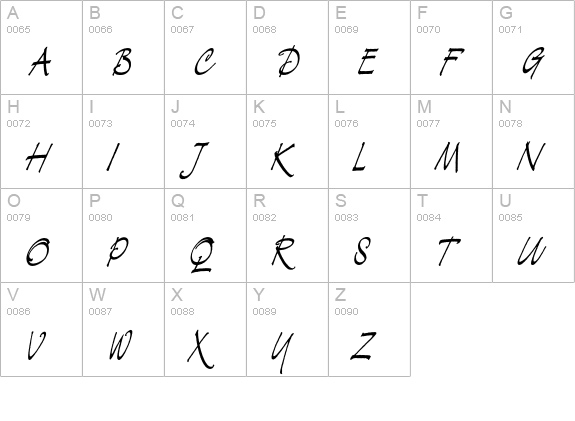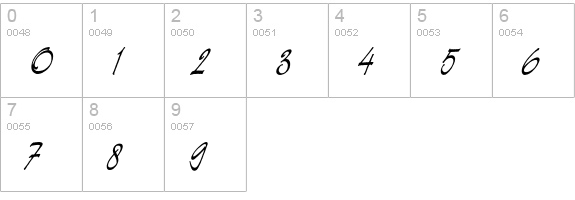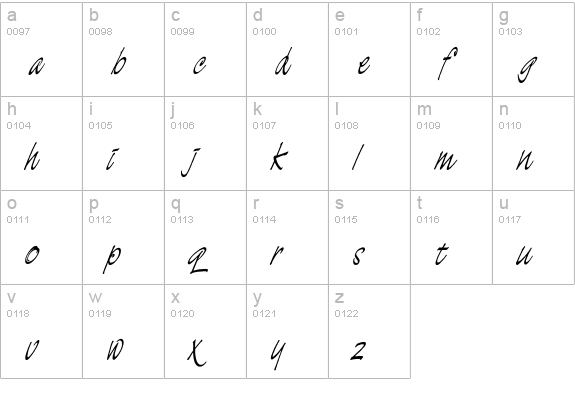
DemianEF Font Details
DemianEF is a stylish and modern font with a unique flair that sets it apart from the rest. Its sleek lines and elegant curves make it suitable for a wide range of design projects, from branding to editorial work. This font is free to download at FontsMarket.com, allowing designers to access its beauty and versatility without any cost. Whether you're looking to add a touch of sophistication to your next project or simply want to experiment with a new typeface, DemianEF is the perfect choice. Unlock your creativity and enhance your designs with this free and captivating font.